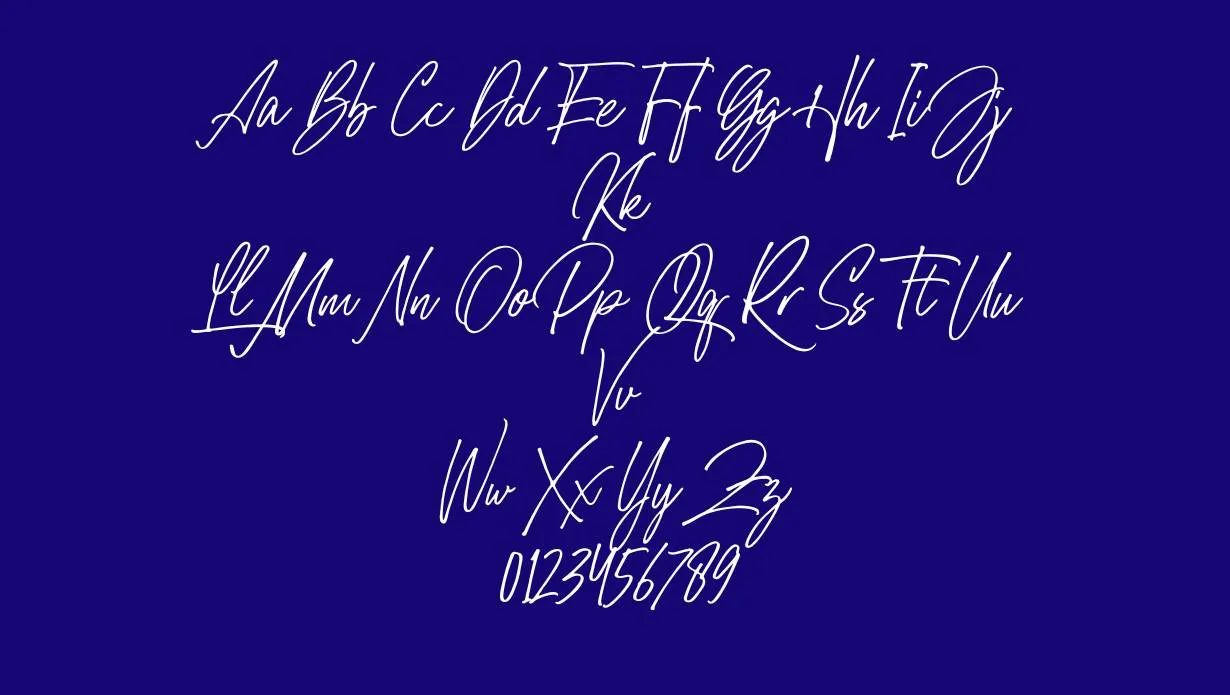
Belle Hamilton Font is a graceful and flowing script typeface often chosen for elegant branding, wedding invitations, and designs that require a touch of romance.
| Name | Belle Hamilton Font |
| Designer | Runsell Graphic |
This font’s cursive style and fluid strokes add a sense of sophistication and charm to your projects.